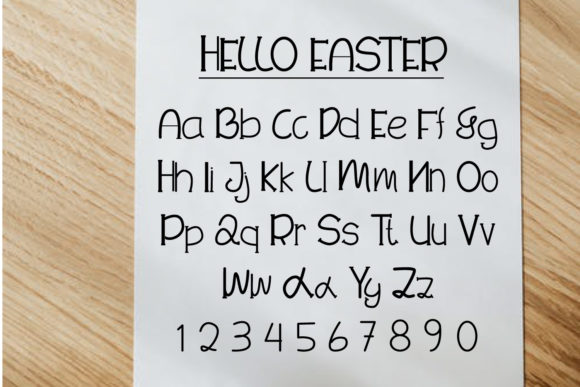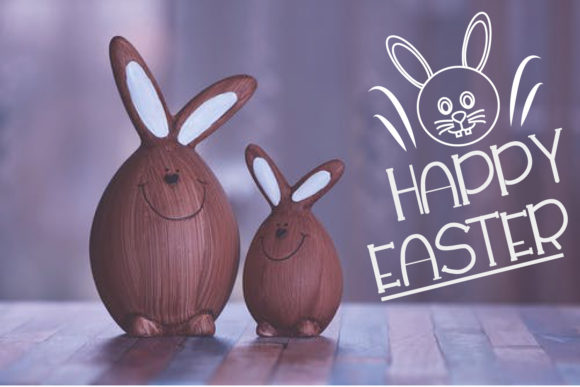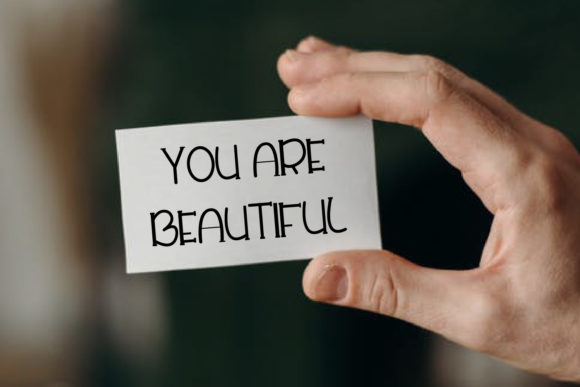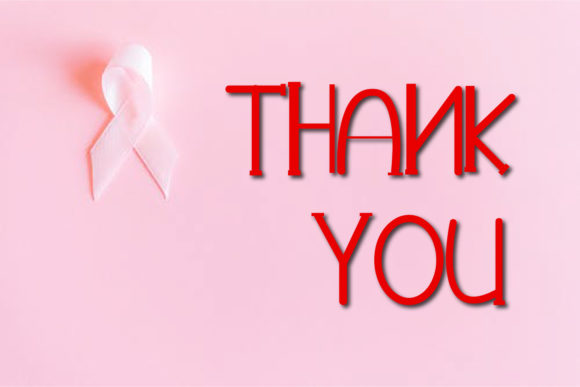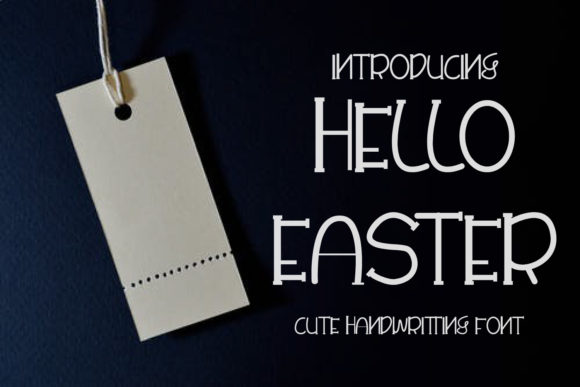
Hello Easter Font: The Perfect Addition to Your Easter-Themed Projects
Are you looking for a font that captures the playful and festive spirit of Easter? Look no further than the Hello Easter font! This cute and friendly handwritten font is perfect for adding a touch of whimsy to your logos, branding, posters, and crafty DIY projects.
What Makes Hello Easter Font So Special?
Hello Easter is a one-of-a-kind font that exudes a sense of playfulness and quirkiness. Its handwritten style gives it a personal and approachable feel, making it perfect for projects that require a touch of warmth and personality. Whether you’re designing Easter-themed decorations, creating a logo for an Easter-related business, or simply looking for a fun font to use in your craft projects, Hello Easter is the perfect choice.
Key Features of Hello Easter Font
- Cute and Friendly: Hello Easter font has a warm and inviting feel that’s perfect for Easter-themed projects.
- Handwritten Style: The font’s handwritten style gives it a personal and unique touch.
- Playful and Quirky: Hello Easter font is perfect for adding a touch of whimsy to your designs.
- Versatile: Use Hello Easter font for logos, branding, posters, and crafty DIY projects.
Uses for Hello Easter Font
The possibilities are endless when it comes to using Hello Easter font. Here are a few ideas to get you started:
- Easter-themed Decorations: Use Hello Easter font to create festive Easter decorations, such as egg hunt signs, Easter baskets, and more.
- Logos and Branding: Create a logo for your Easter-related business or product using Hello Easter font.
- Posters and Flyers: Use Hello Easter font to create eye-catching posters and flyers for Easter events and promotions.
- Crafty DIY Projects: Add a personal touch to your crafty DIY projects, such as Easter cards, gift tags, and more, with Hello Easter font.
Tips for Using Hello Easter Font
Here are a few tips for getting the most out of Hello Easter font:
- Pair with Other Fonts: Experiment with pairing Hello Easter font with other fonts to create a unique and eye-catching combination.
- Use in Different Colors: Try using Hello Easter font in different colors to add visual interest to your designs.
- Experiment with Sizes: Play around with different font sizes to create a sense of hierarchy and emphasis in your designs.
Hello Easter font is a versatile and fun font that’s perfect for adding a touch of whimsy to your Easter-themed projects. With its cute and friendly handwritten style, playful and quirky vibe, and endless uses, Hello Easter font is a must-have for designers and crafters alike. So why wait? Download Hello Easter font today and start creating your own Easter-themed masterpieces!